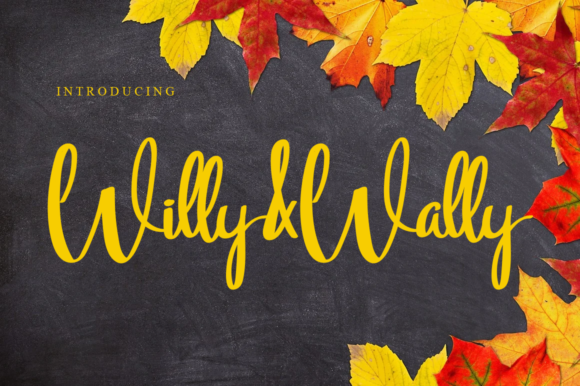
Presenting the Willy & Wally Font, a calligraphic masterpiece that will leave you spellbound. Dive into the world of modern calligraphy, where elegance meets playfulness. Inspired by the allure of hand-lettering, Willy & Wally captures the essence of free-spirited expression. This font is not just a collection of letters; it is an art form, a symphony of curves and strokes that dances across your designs.
With Willy & Wally, you hold the power to transform your creative visions into captivating realities. Its fluid lines and graceful swashes will add a touch of sophistication and charm to your projects. Imagine wedding invitations that evoke a sense of timeless romance, branding designs that exude a touch of whimsy, or social media posts that pop with a burst of personality. The possibilities are endless, awaiting your artistic exploration.
Step into a world where typography becomes an art, where every letter carries a story, and every word becomes a masterpiece. With Willy & Wally, you have the tools to craft designs that resonate with your audience, leaving an imprint that lingers long after they've turned the page or scrolled away.
Embrace the beauty of imperfection, the charm of the handwritten, the allure of the unique. Willy & Wally isn't just a font; it's an experience, a journey into the realm of creative expression. Let your imagination soar, let your creativity flow, and watch as Willy & Wally transforms your designs into works of art.